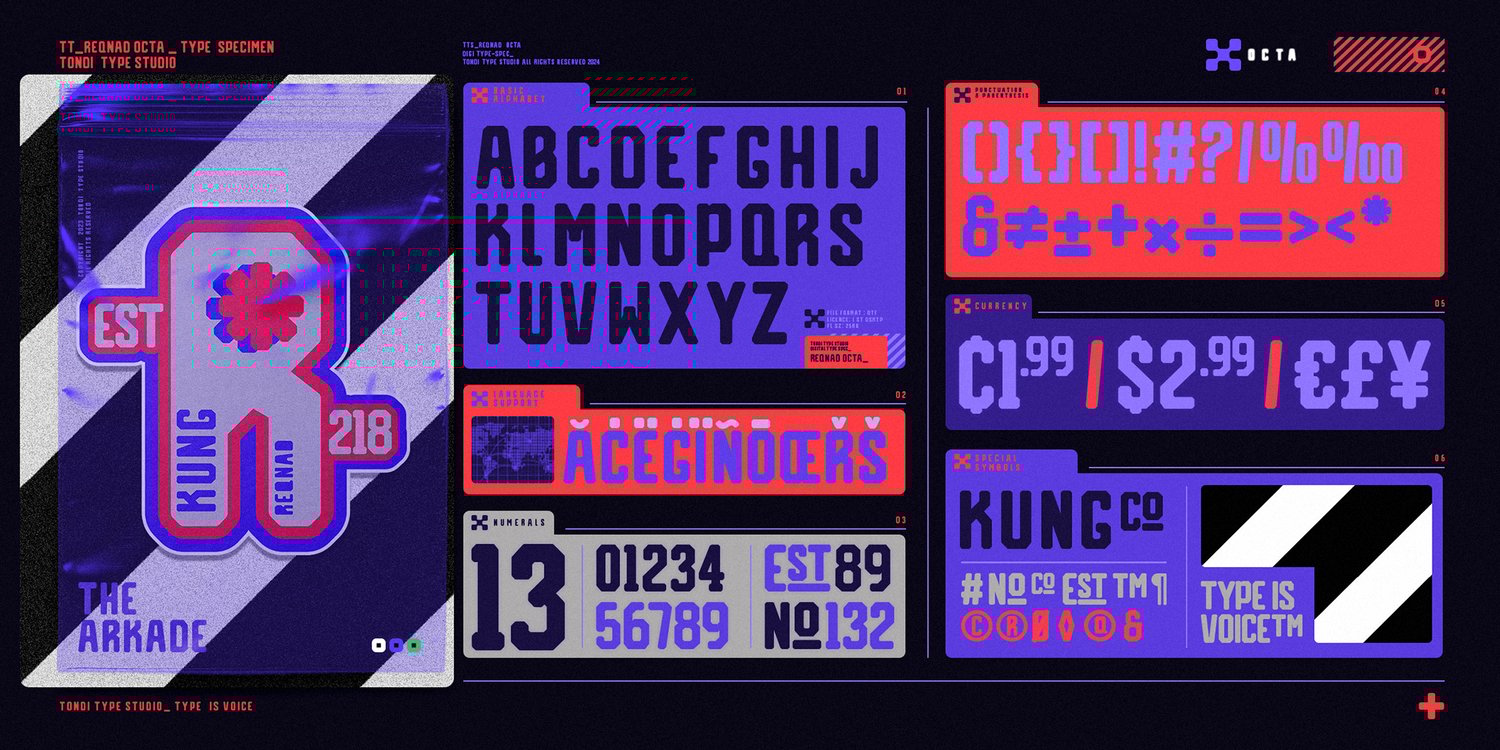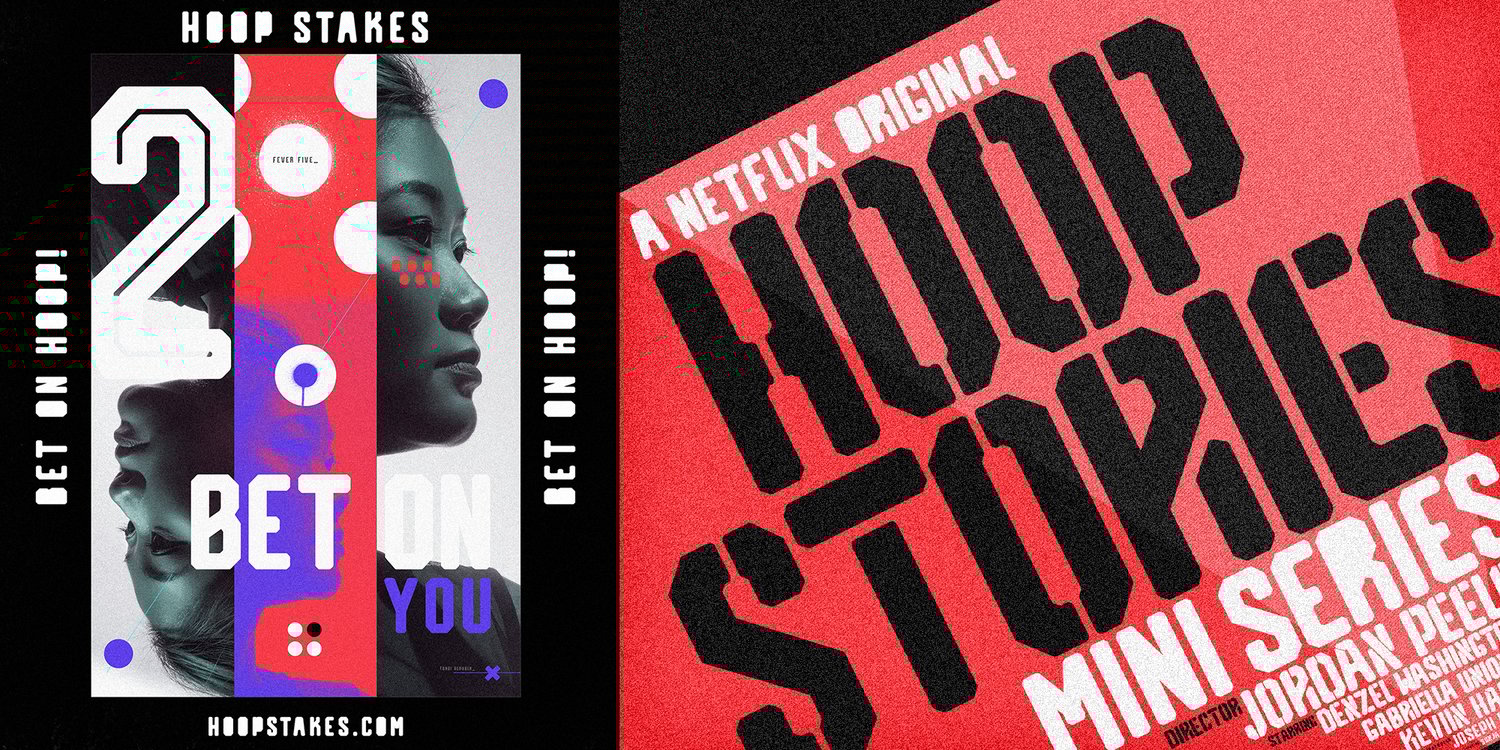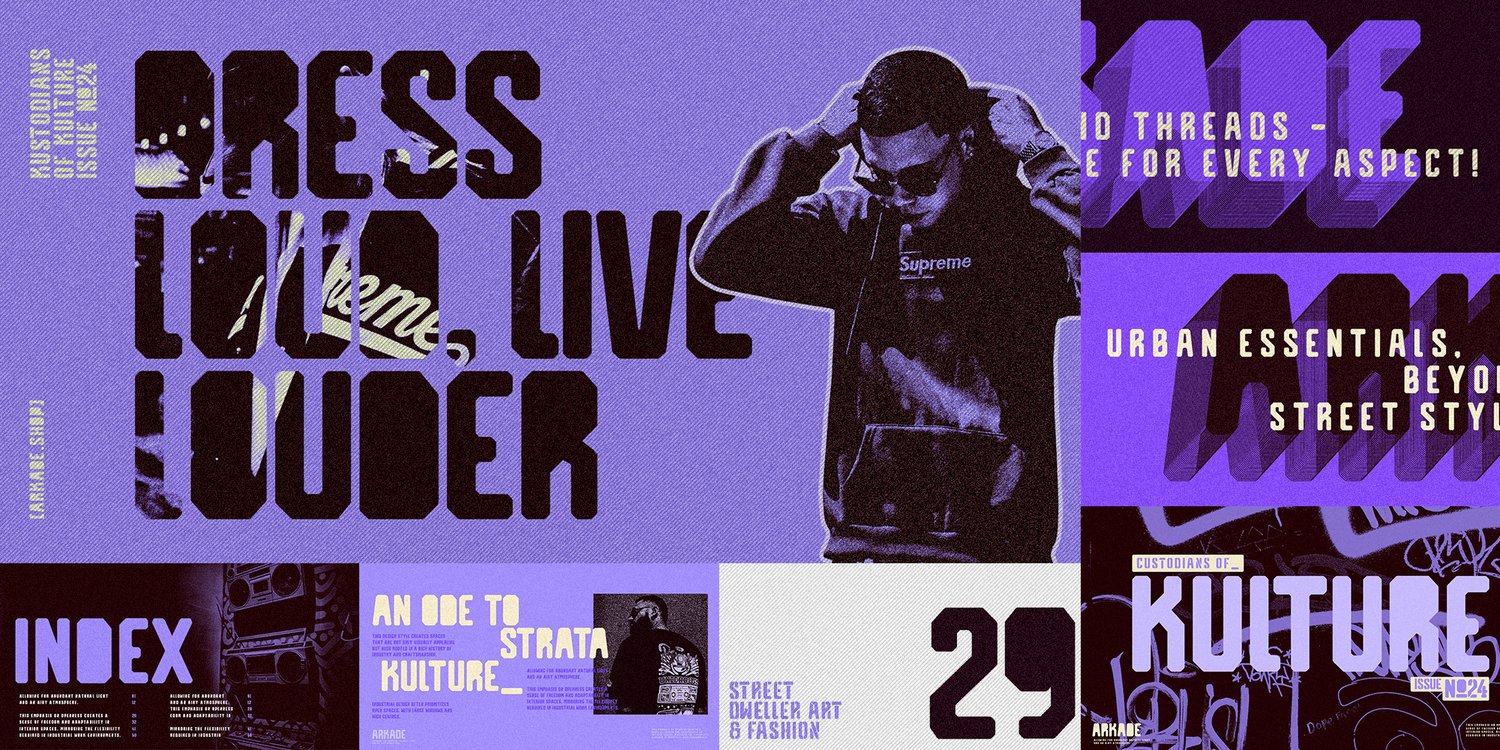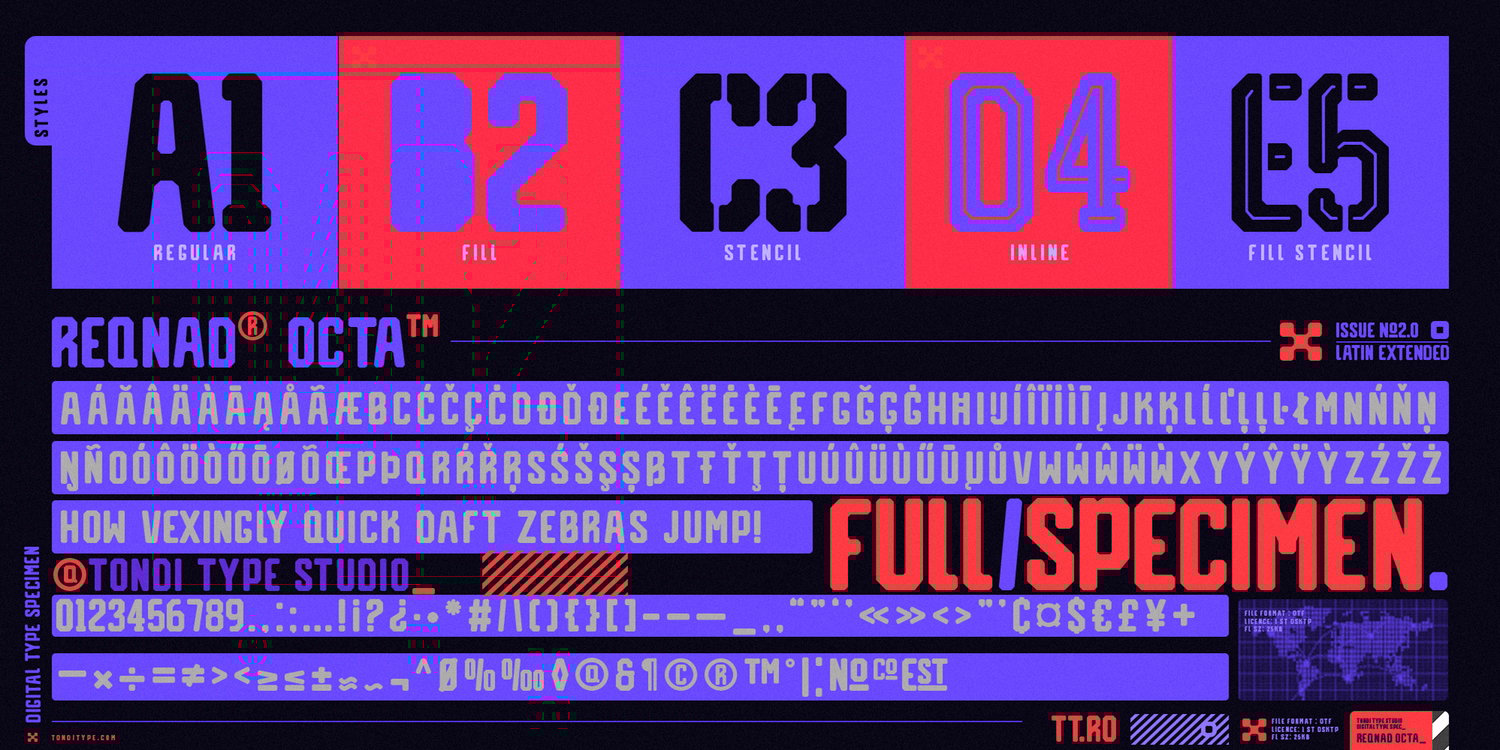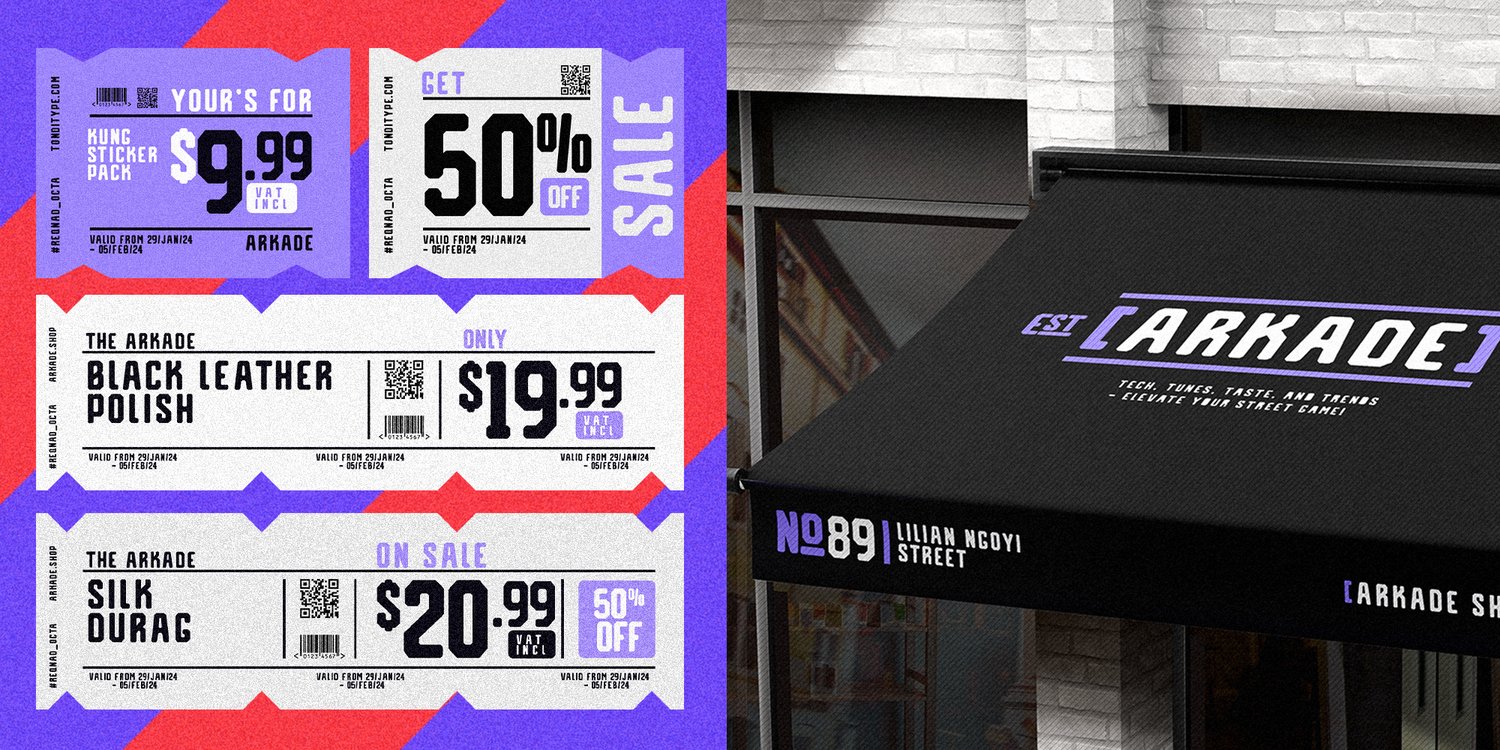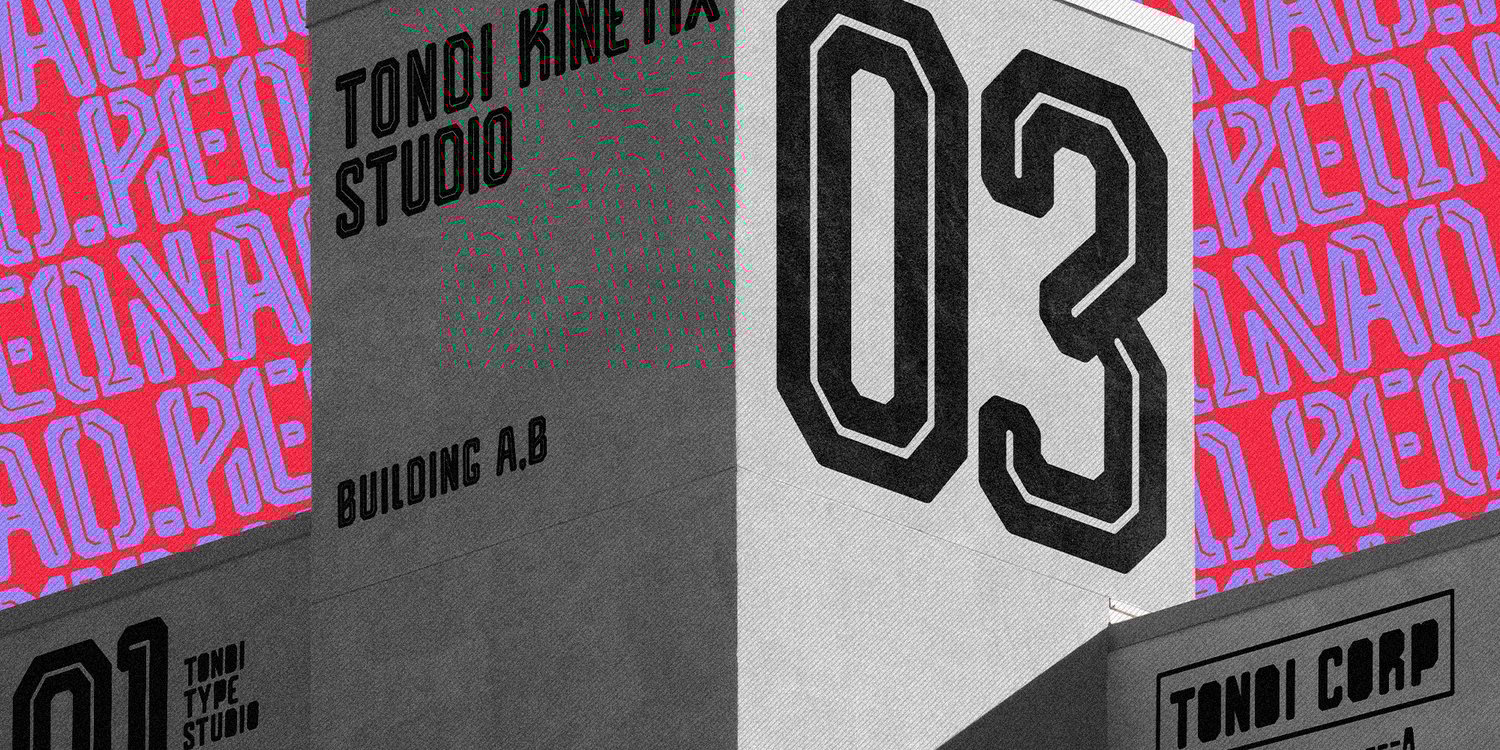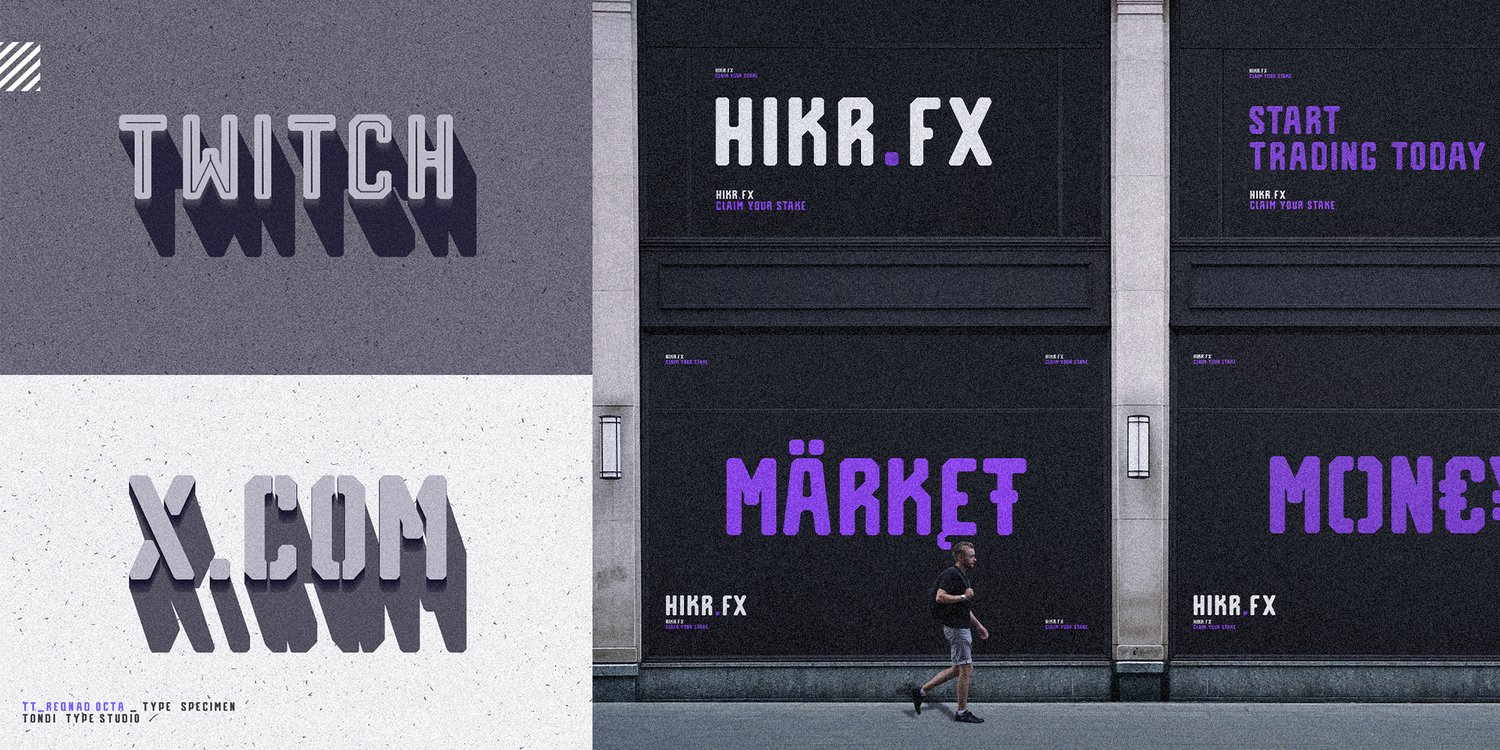
Reqnad Octa | Font Family
Reqnad Octa is a display sans serif with and industrial appeal. The typeface has a geometric aesthetic with a rounded finish and octagonal angles. Reqnad Octa comes in a family of five different styles with a free sample style for you to test out.
- Regular,
- Fill,
- Stencil,
- Inline and
- Inline Stencil.
Reqnad Octa is suitable for use in but not limited to, Sports, Headlines, packaging, editorial, apparel and outdoor design etc. The font family is part of a bigger type collection that includes: Reqnad Geometrik, Reqnad Type System, RQND Pro and RQND Pro V2.